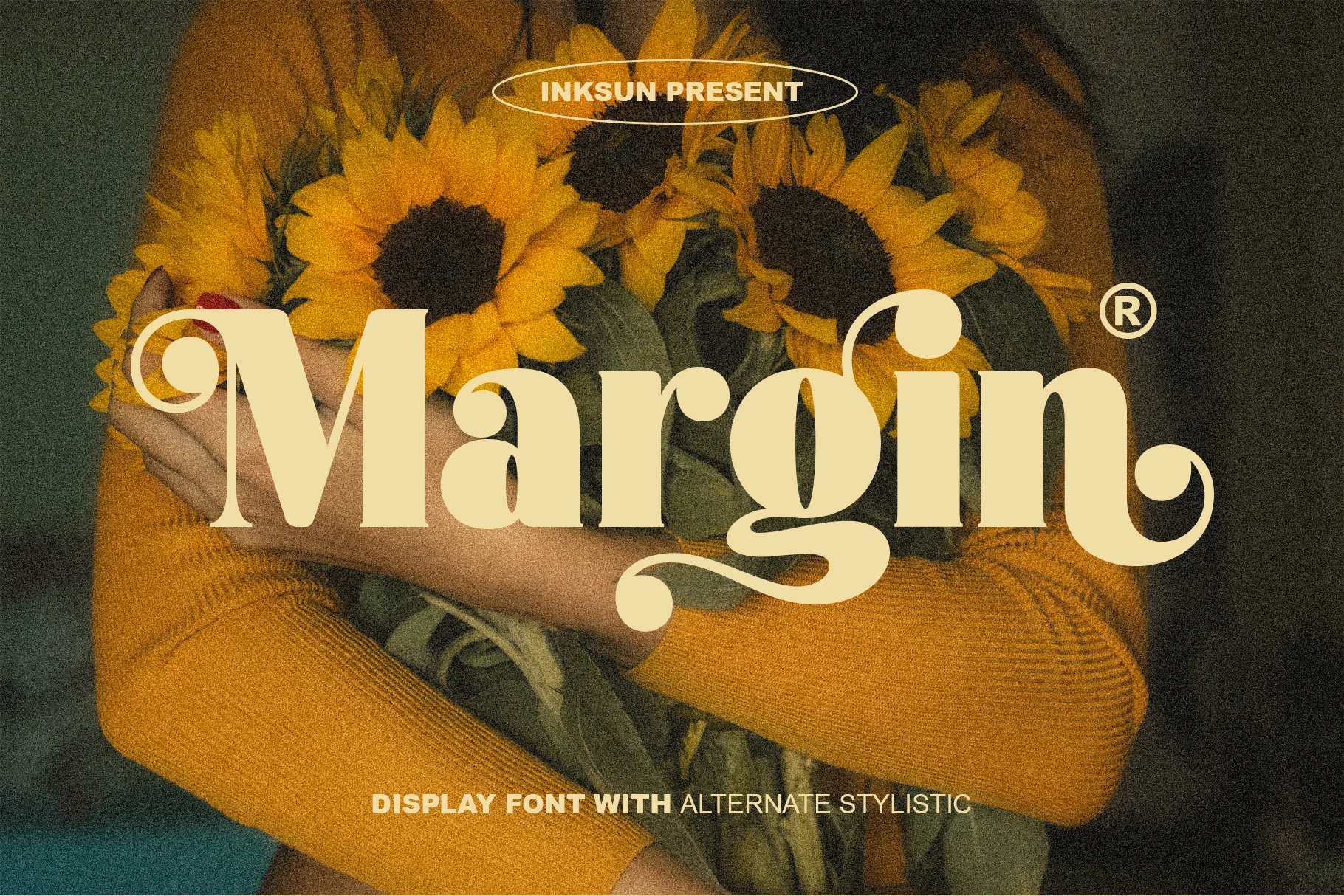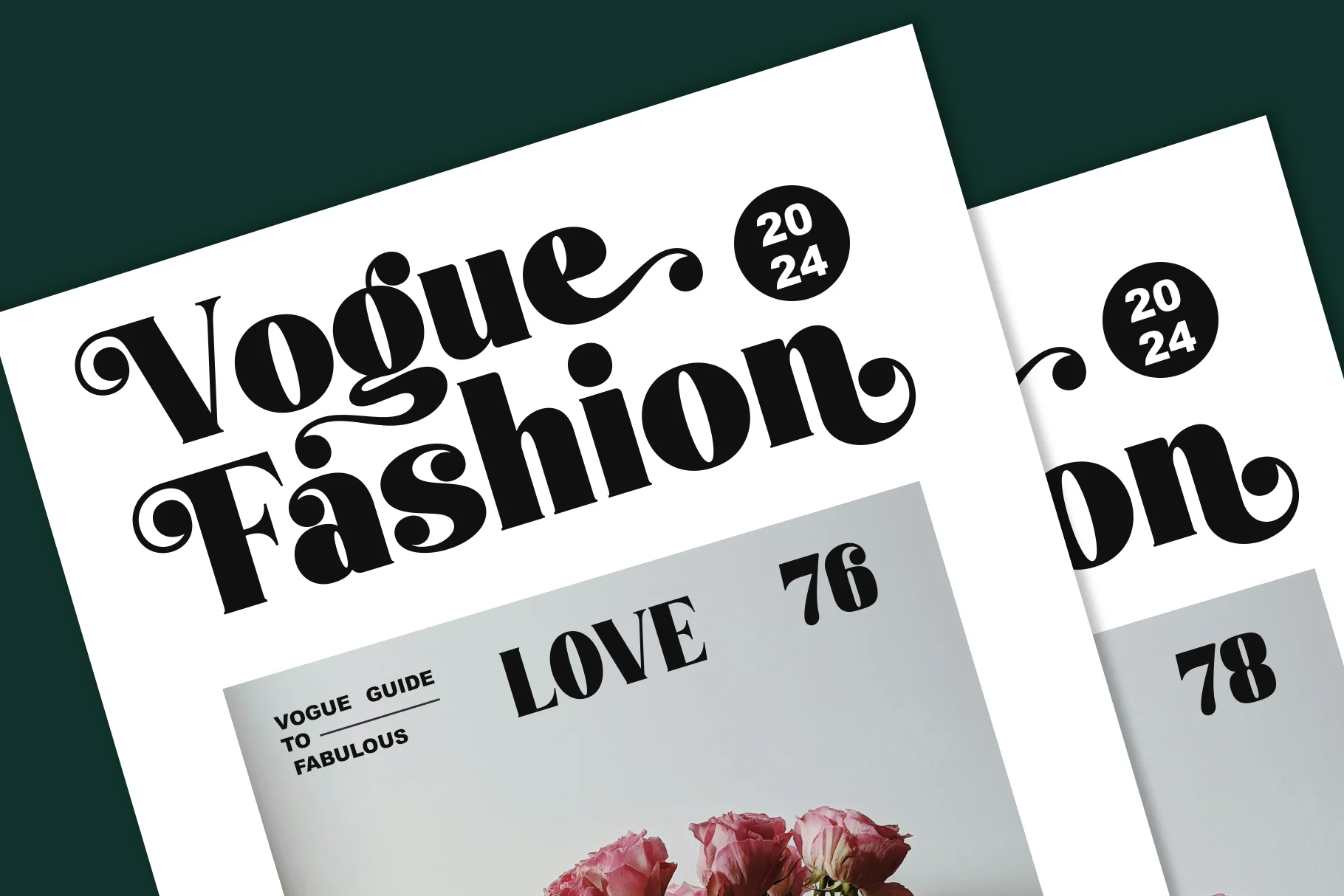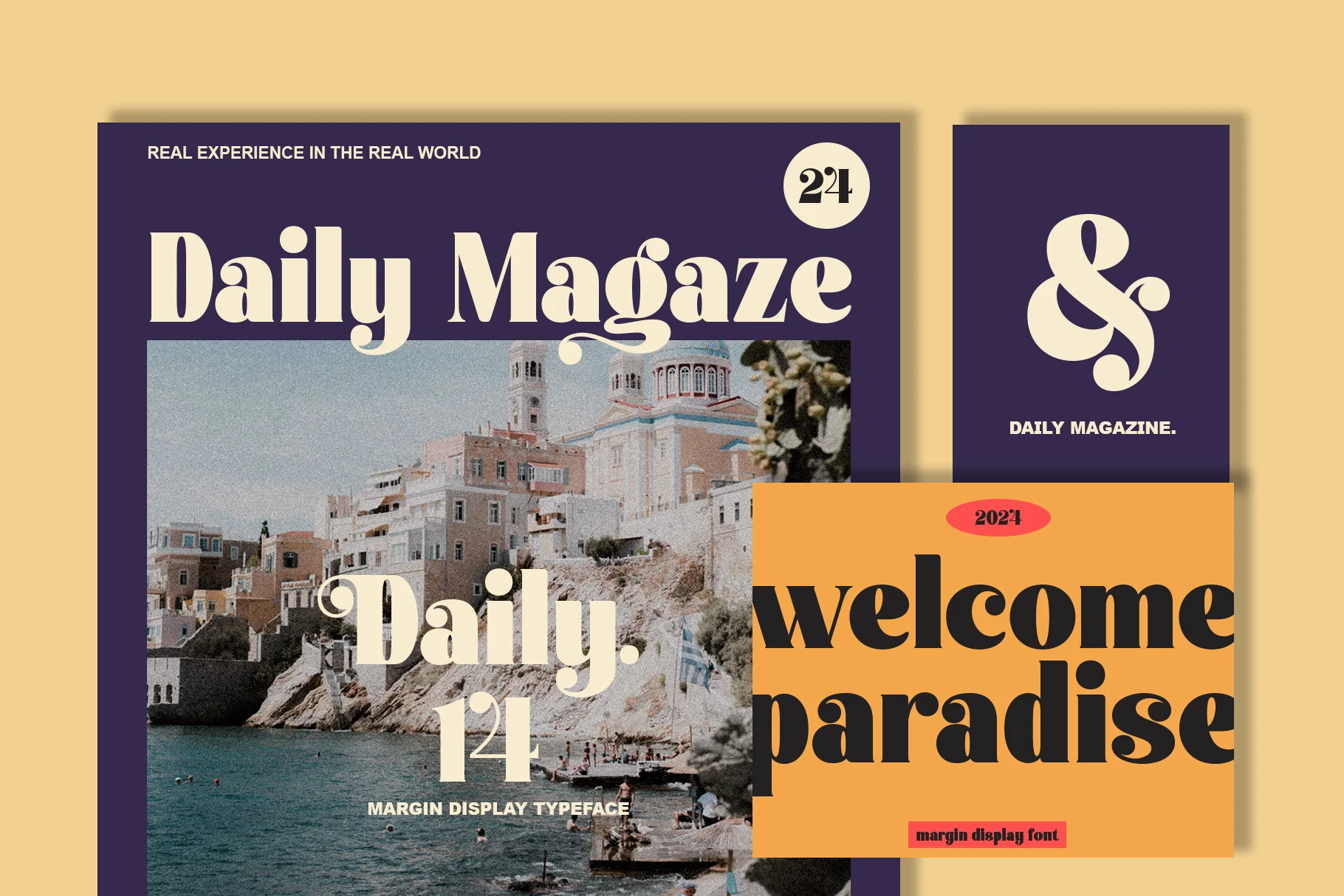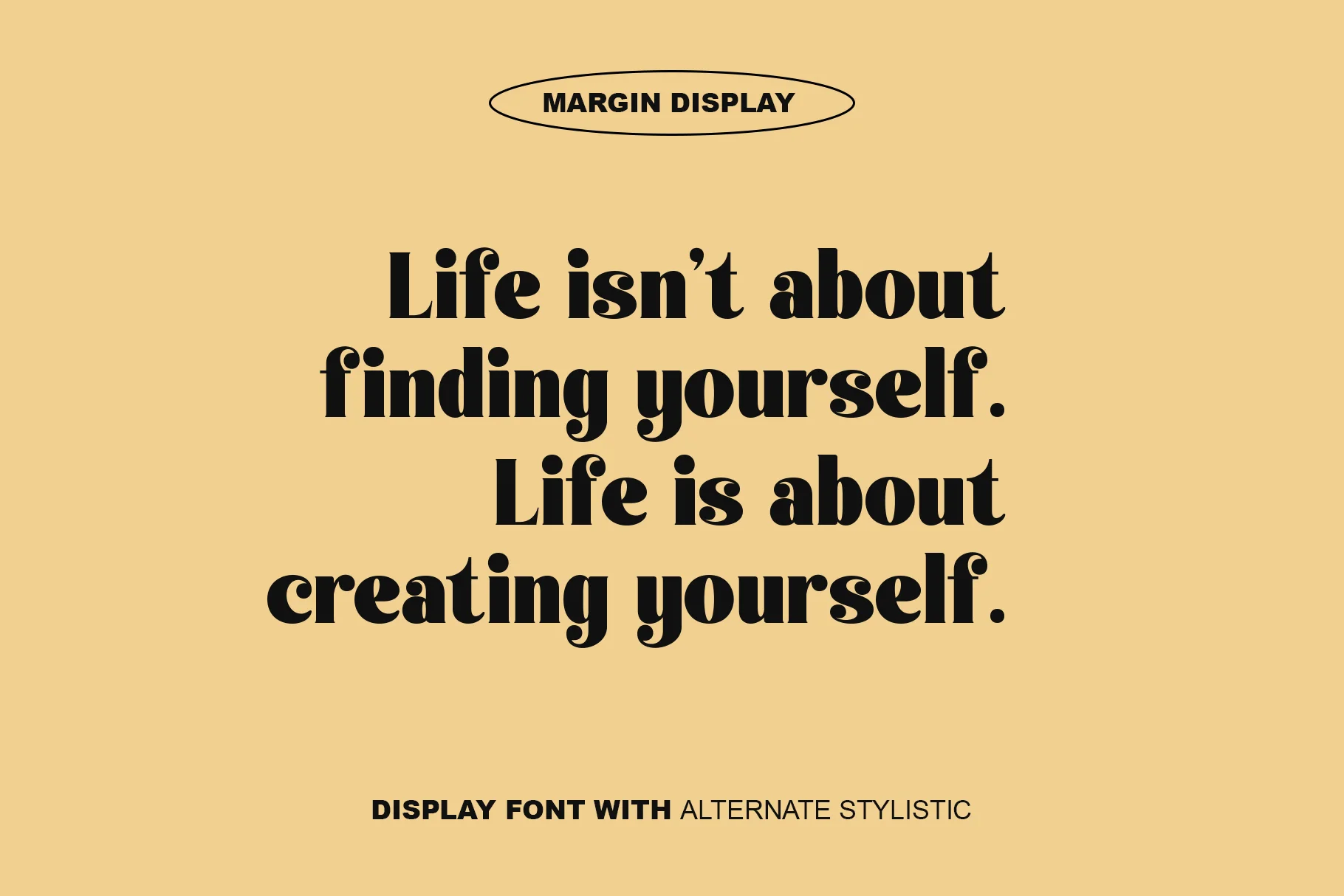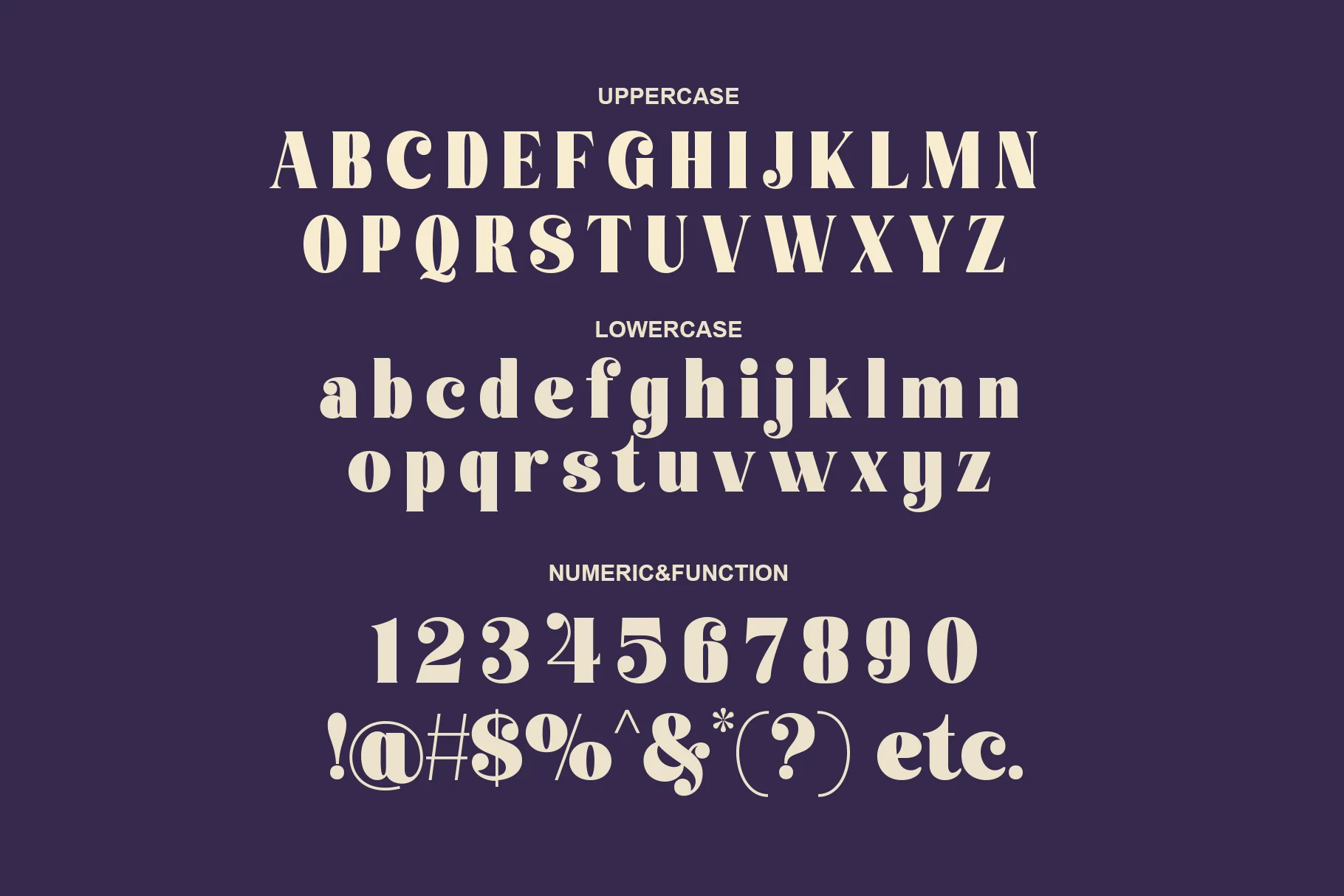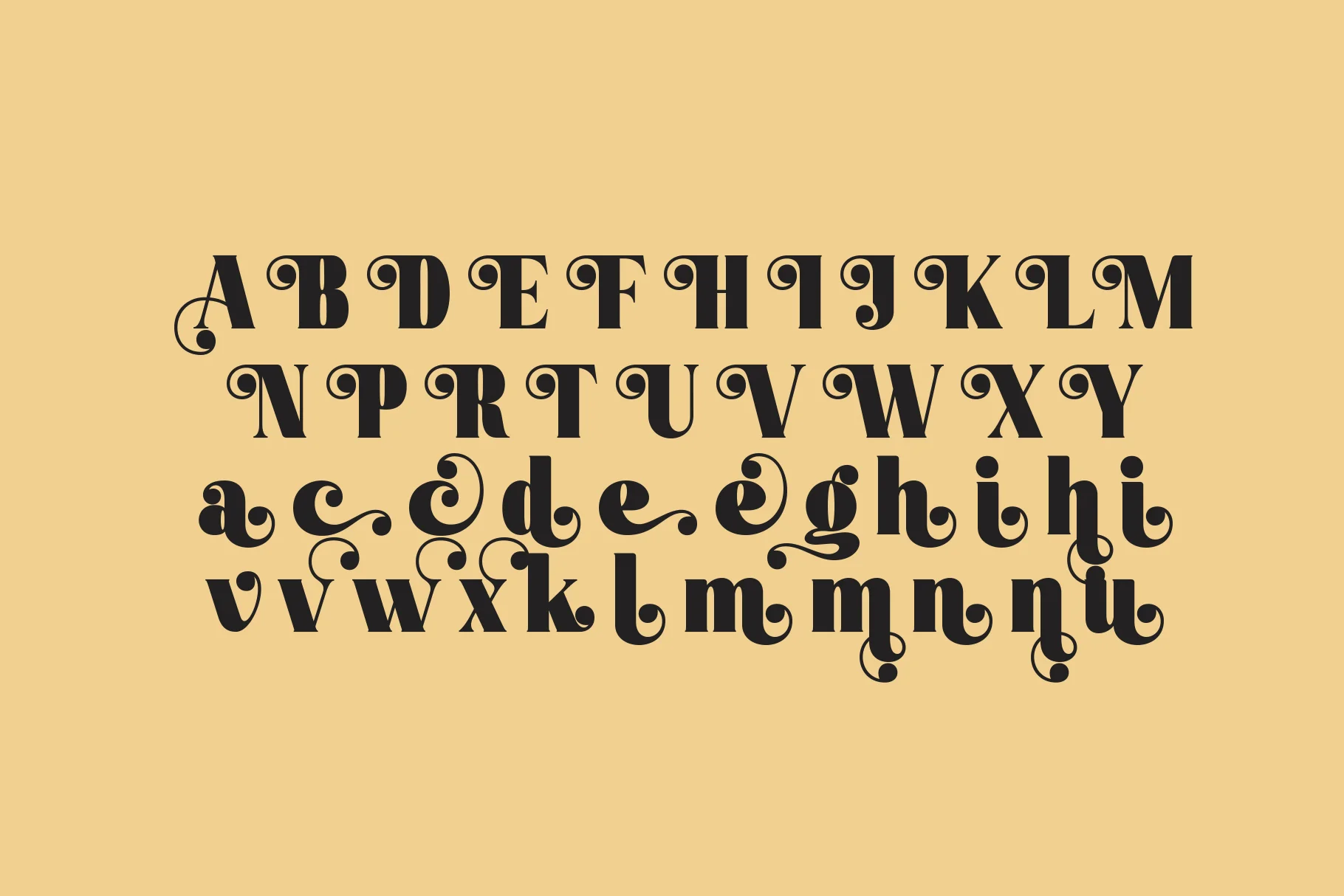
Margin
This is an elegant display serif font with a classic, feminine, and artistic feel. The letterforms have a moderate contrast between thick and thin strokes, combined with soft curves and curved edges, creating a luxurious and graceful feel. Alternate stylistic details are evident in several letters, particularly the g and n shapes, which feature decorative swashes with a vintage feel.
The serifs are smooth and relaxed, creating a harmonious blend of classic retro style and modern touches. This font feels warm, romantic, and has a strong character, perfect for designs that want to emphasize visual beauty and emotion.